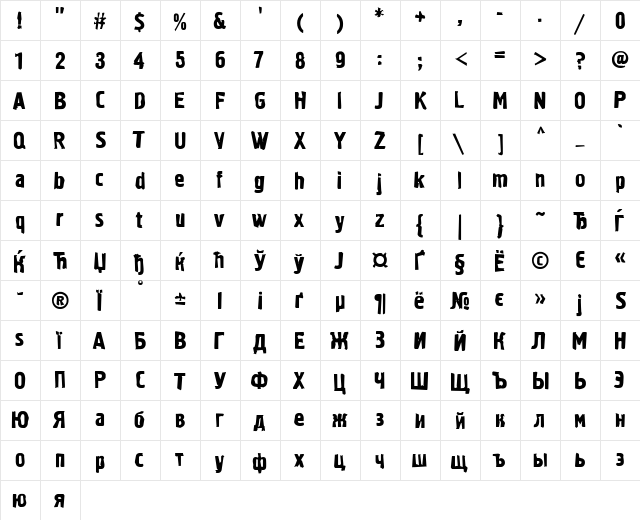
Graffiti1C Regular
Design Context for Graffiti1C Typeface
Graffiti1C takes a measured approach to typography — its balanced proportions and neutral character make it a reliable workhorse for both digital and print work.